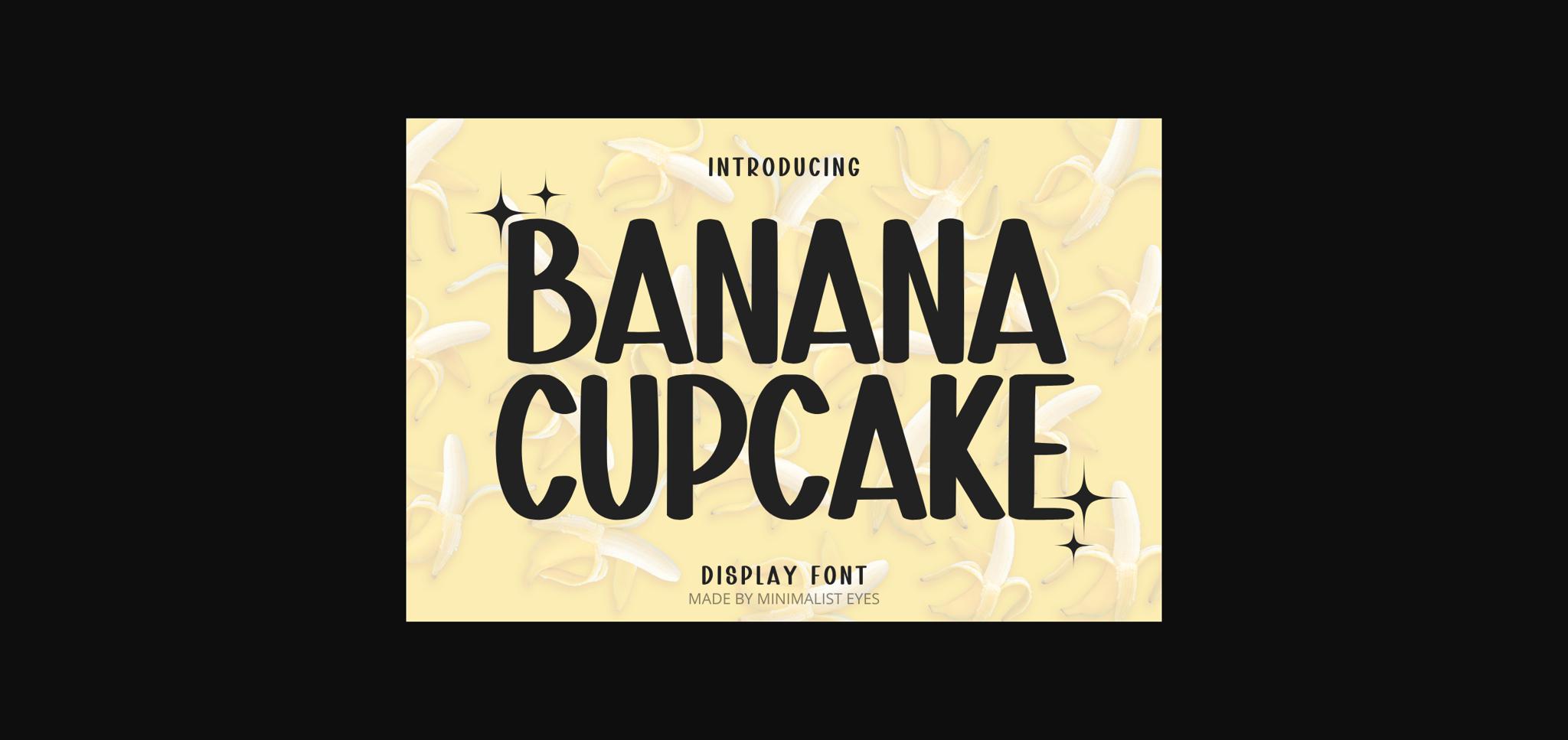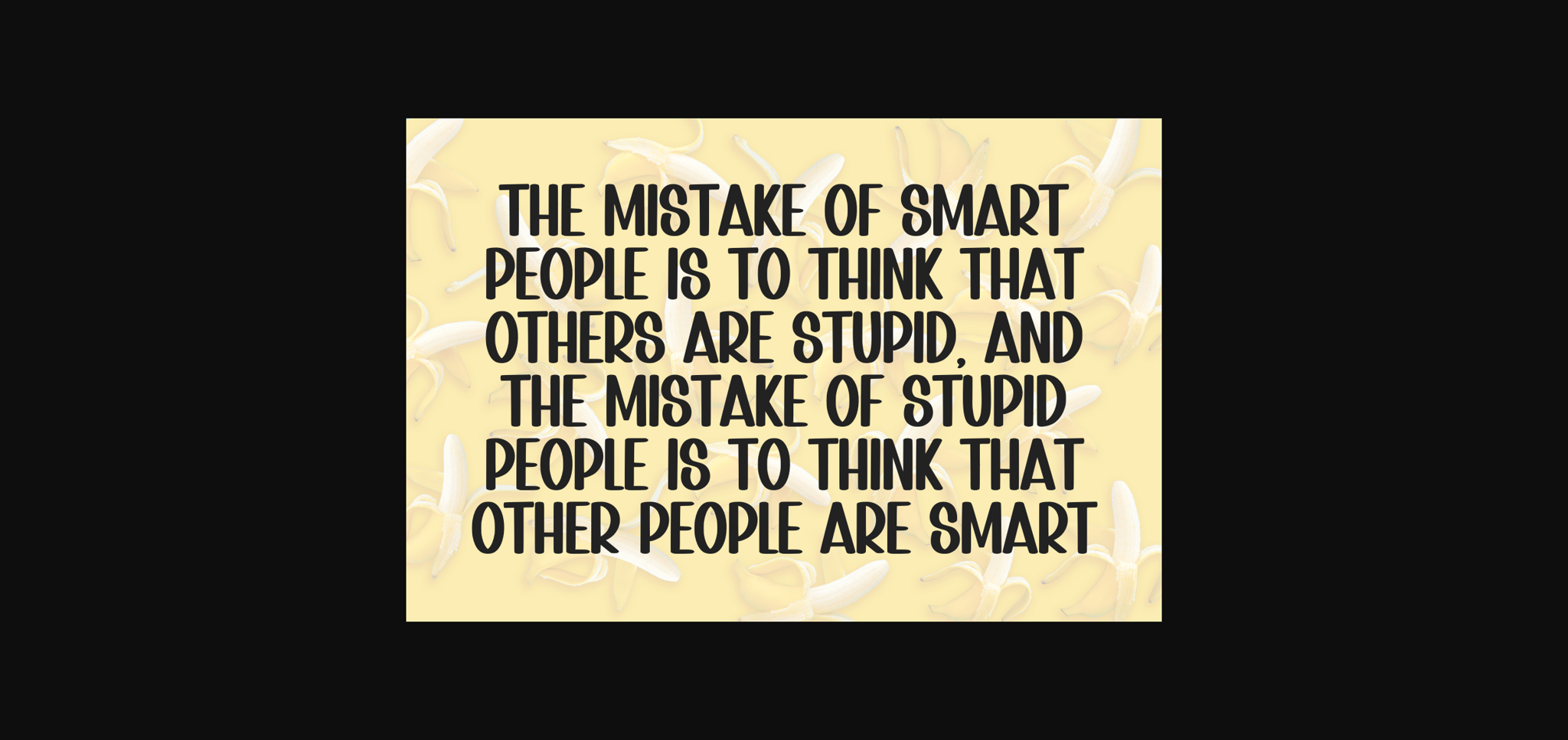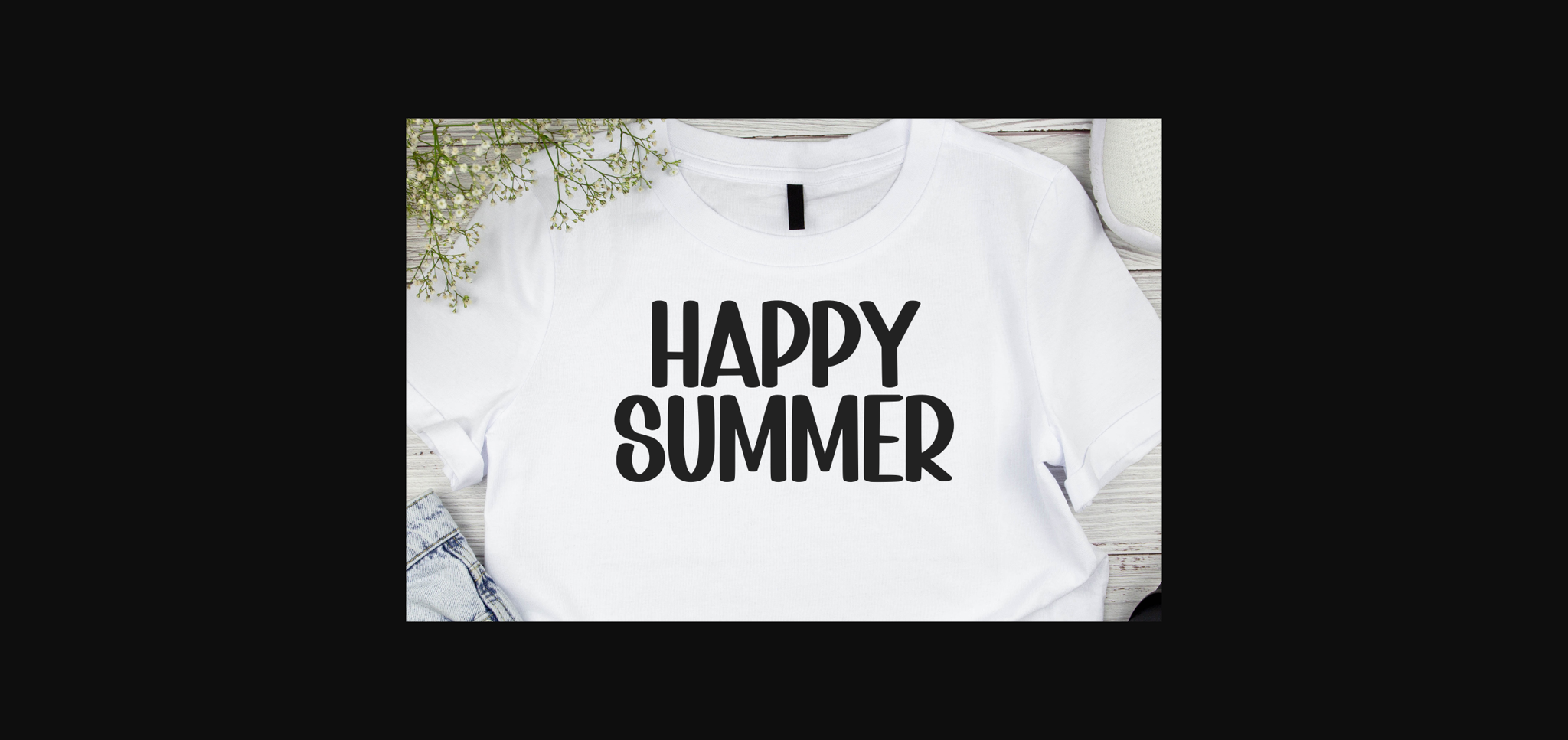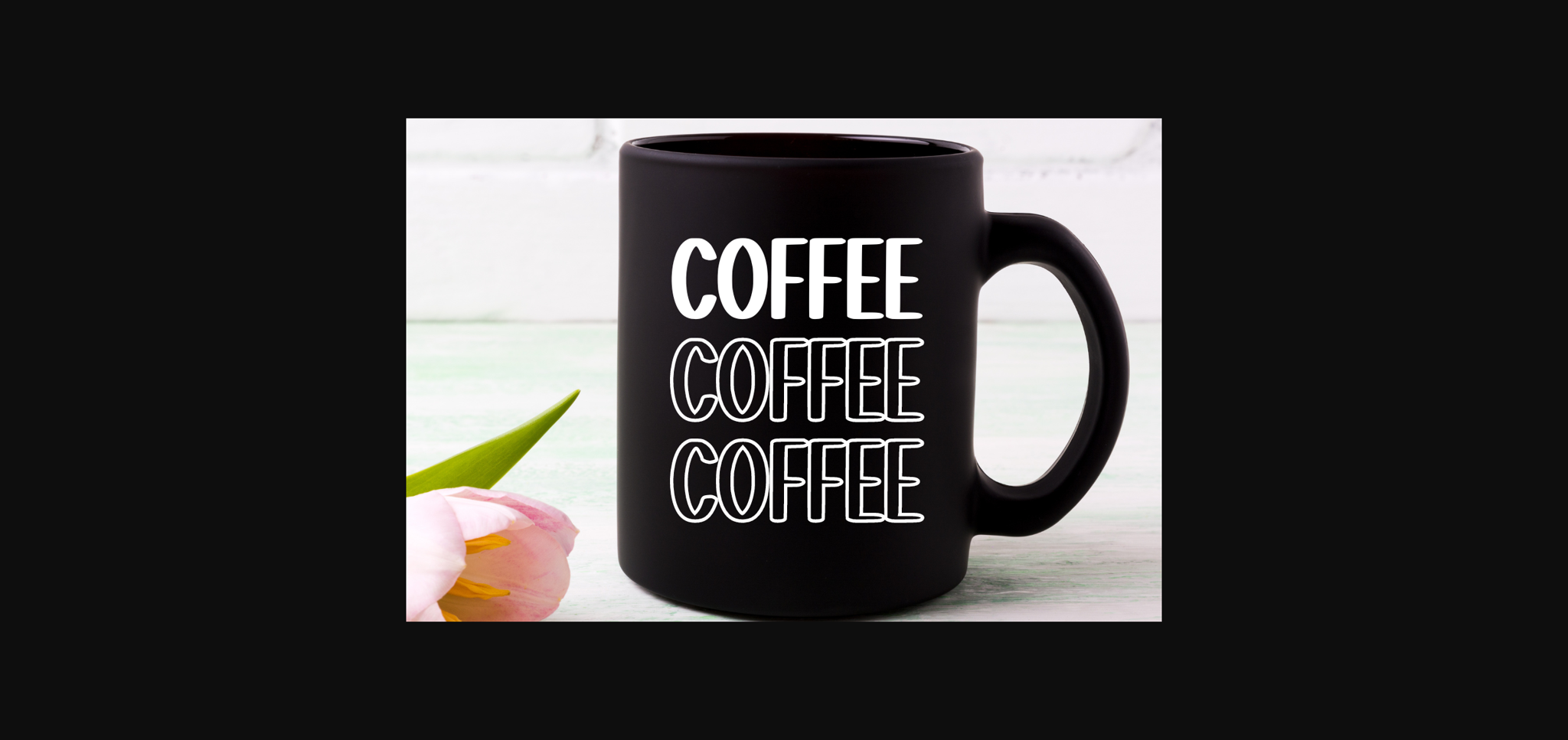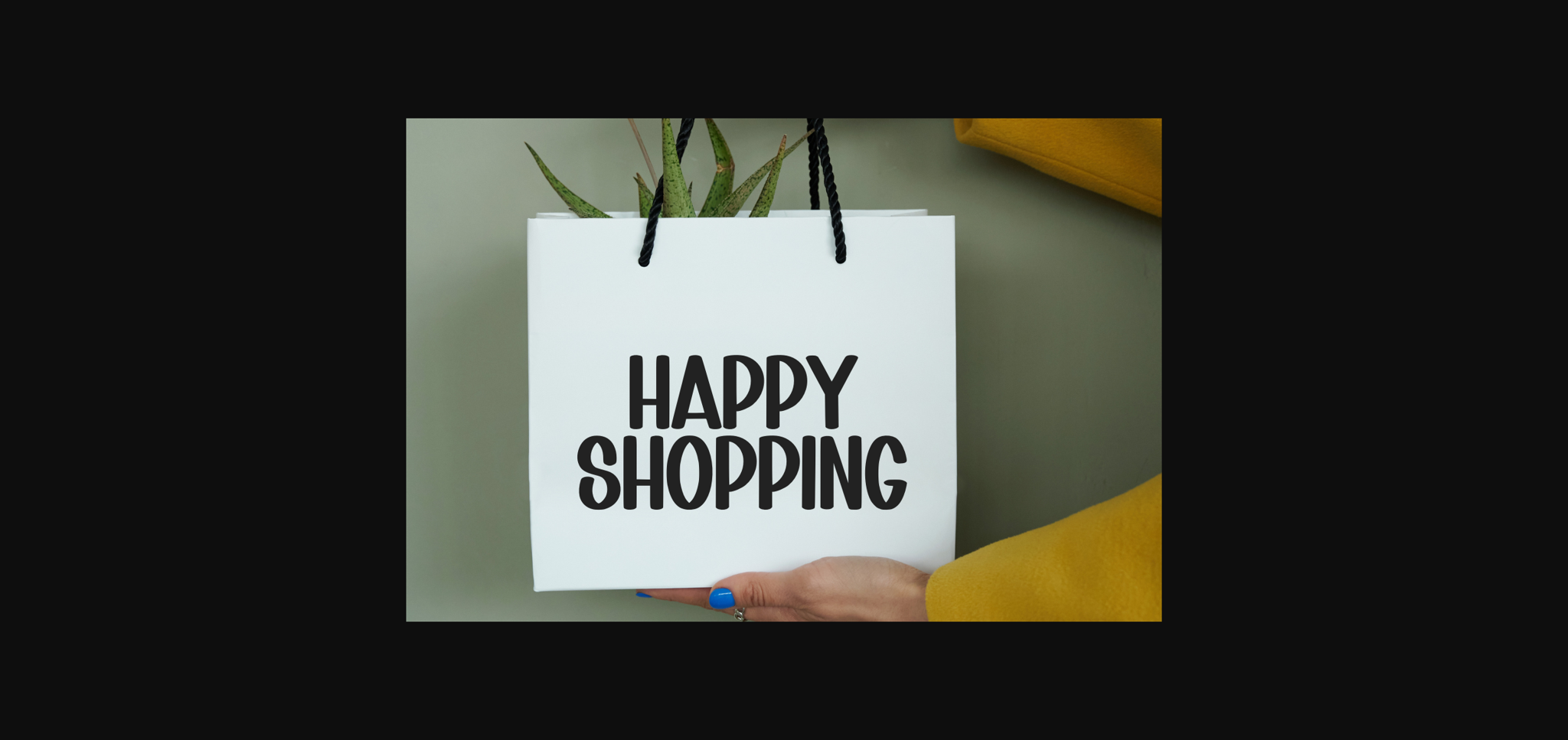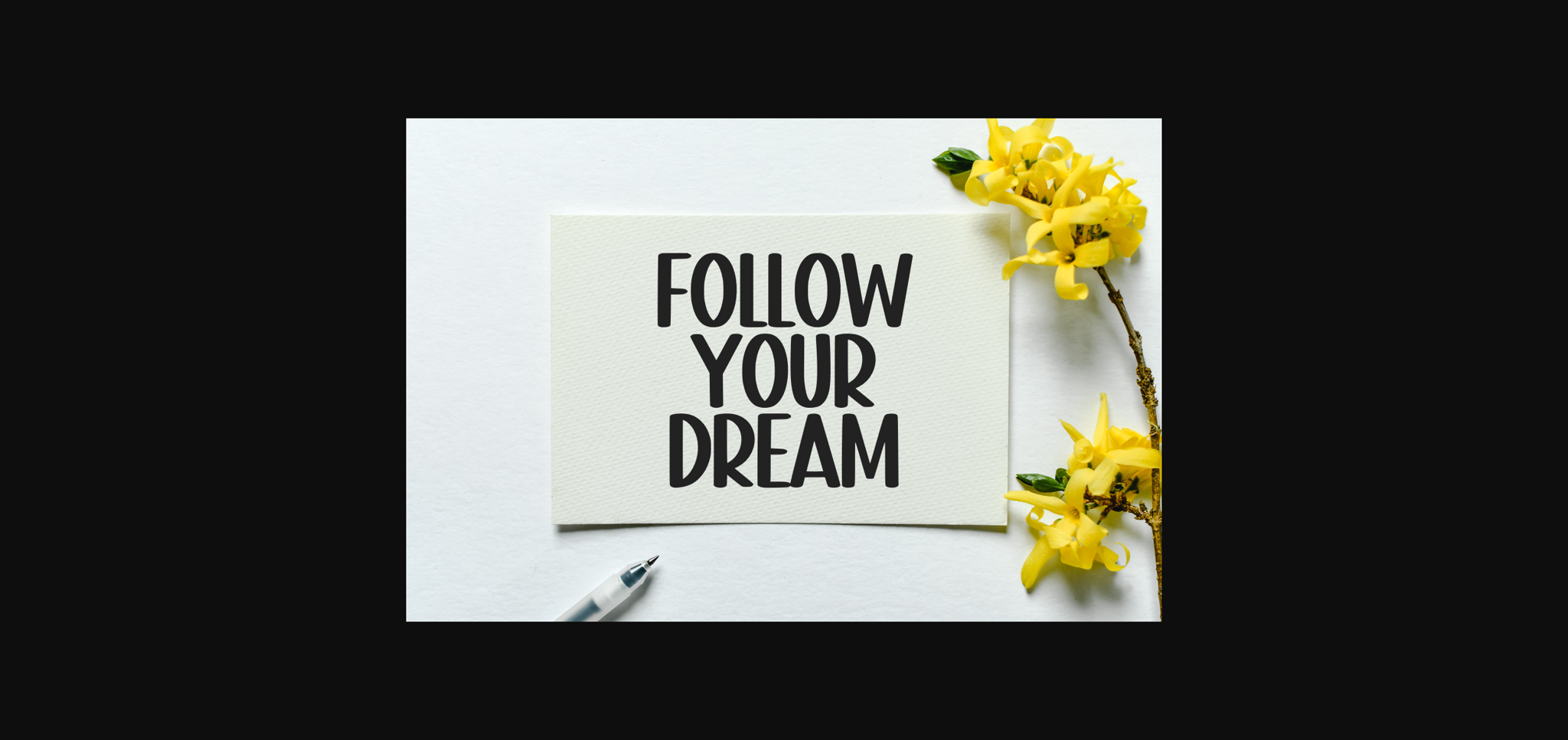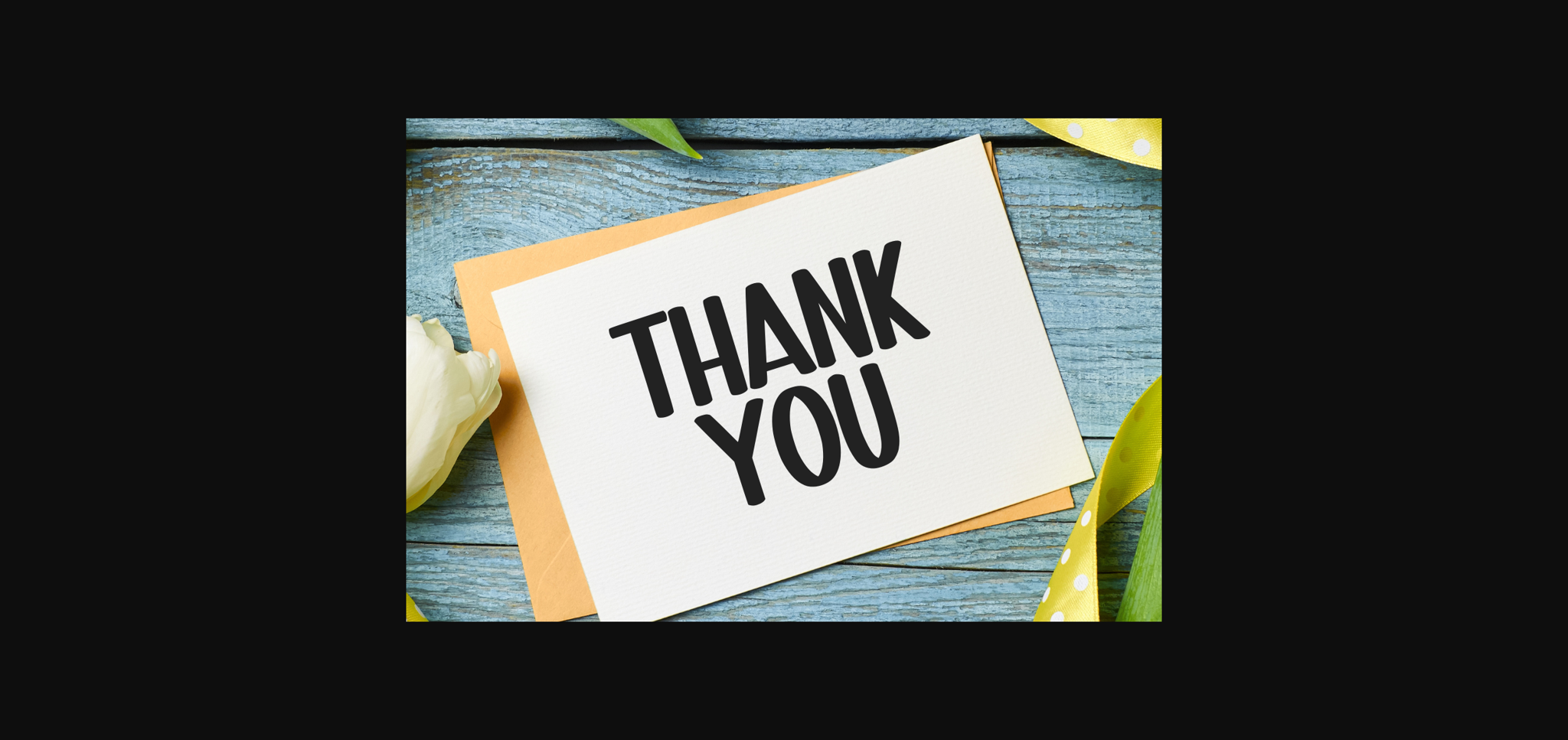
About Banana Cupcake Font
Banana Cupcake is a lively sans-serif font that adds a sprinkle of fun to any design. With its rounded edges and playful letterforms, it exudes a sense of whimsy and versatility. Ideal for branding, packaging, posters, and anything that calls for a touch of cheerfulness and creativity.